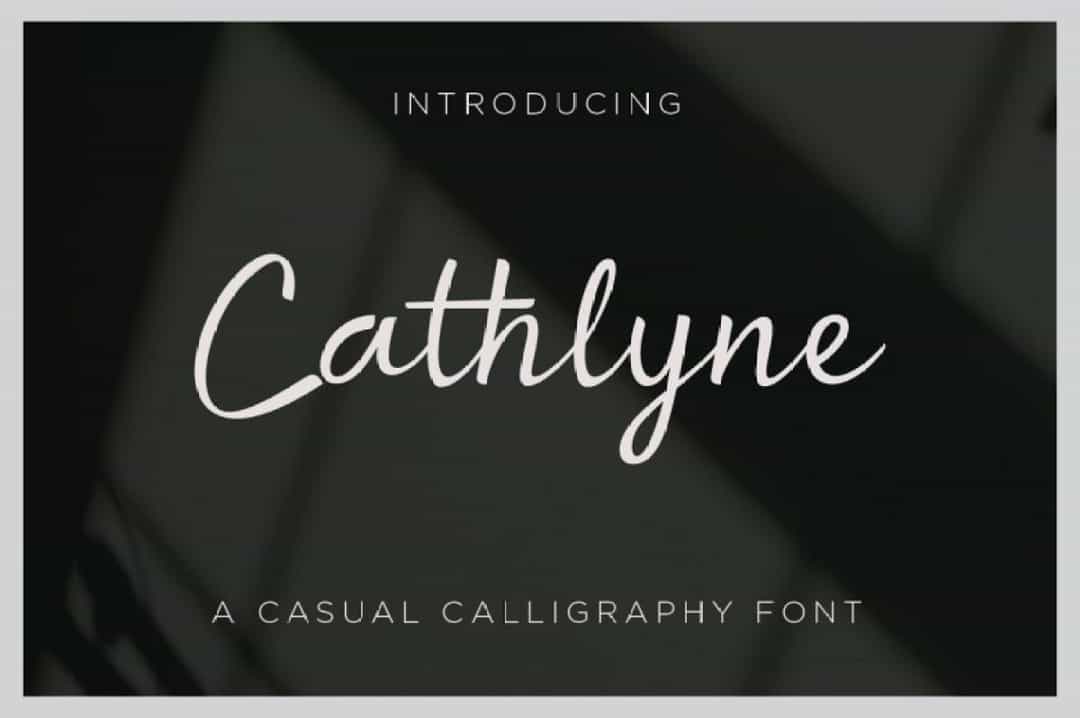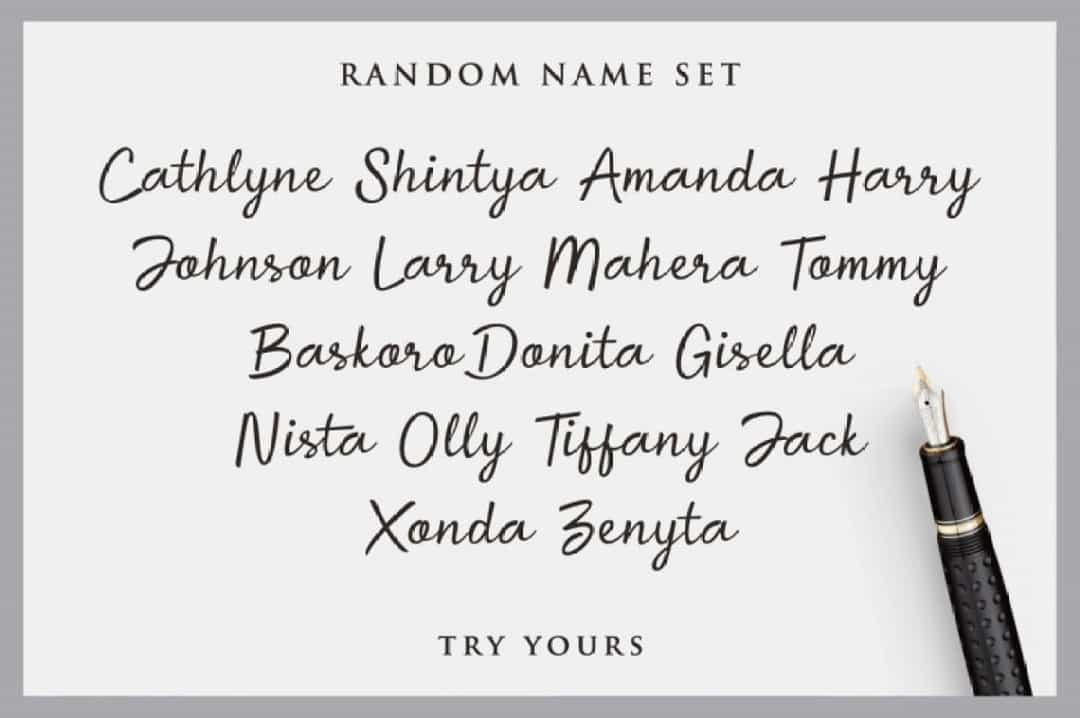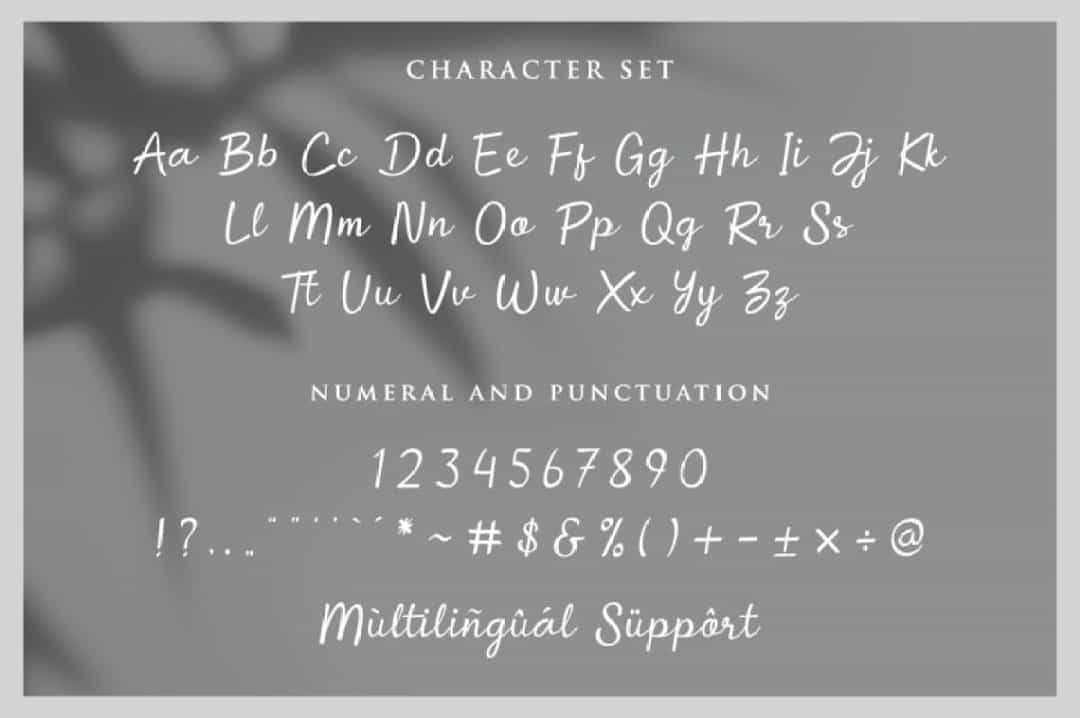
Cathlyne can be described as an exquisite yet timeless handwritten script font. This font makes the ideal choice for creating captivating designs, branding and quotations that pop! Each letter offers its own distinct look – making your designs truly stand out!